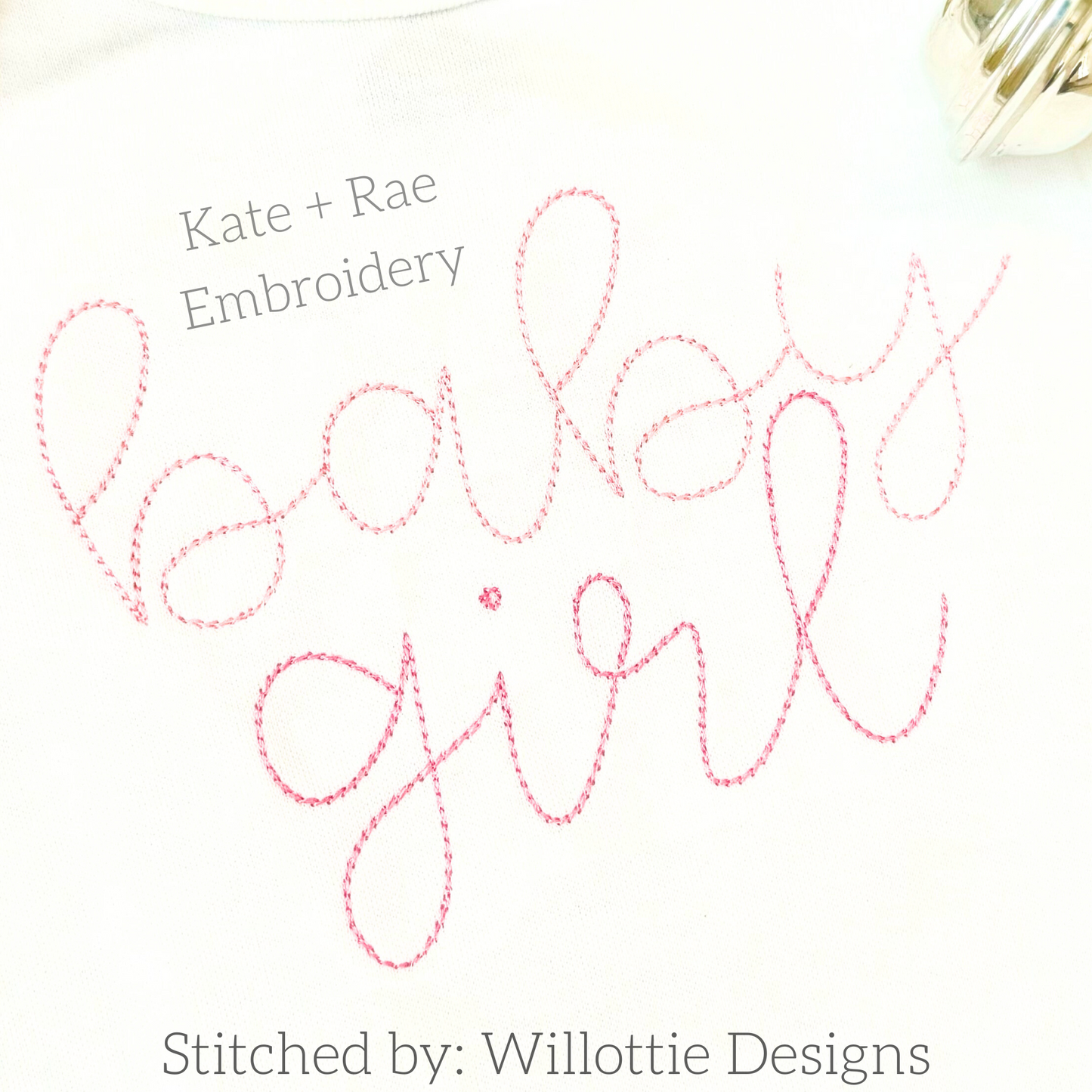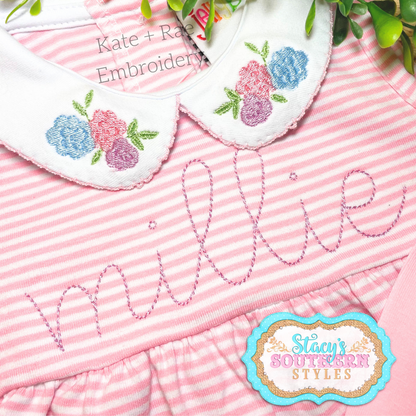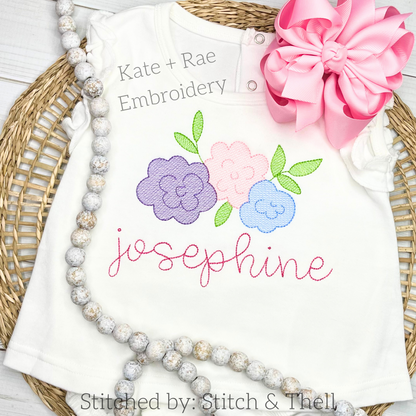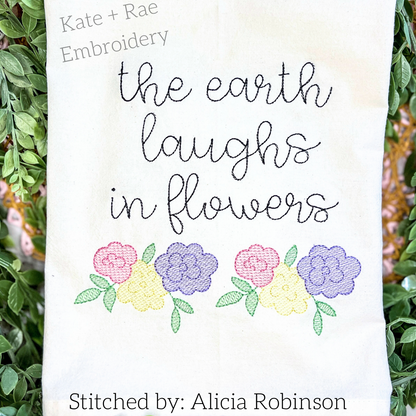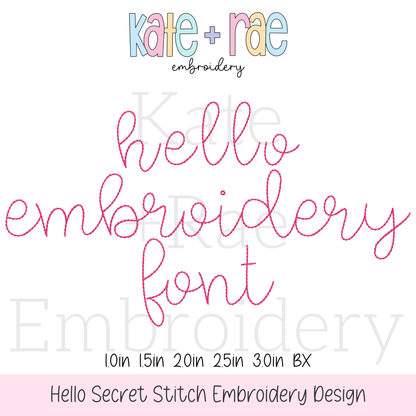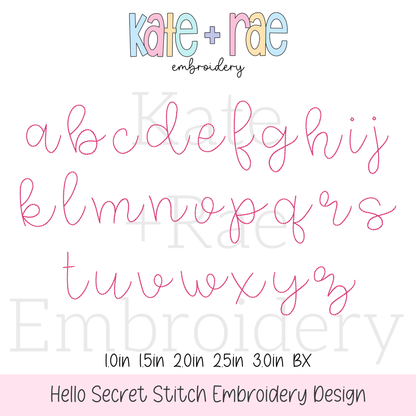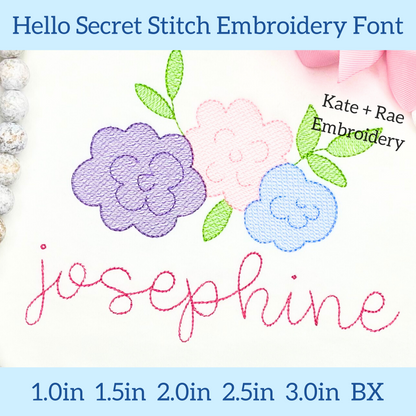
Hello Secret Stitch Embroidery Font
Meet Hello, a handwritten script font in our unique secret stitch! Personalize names, monograms, sweatshirts, and kids' outfits.
This listing includes the Hello Secret Stitch Embroidery Font in the sizes and formats listed above. Our secret stitch is the perfect combo between a bean stitch and a satin stitch.